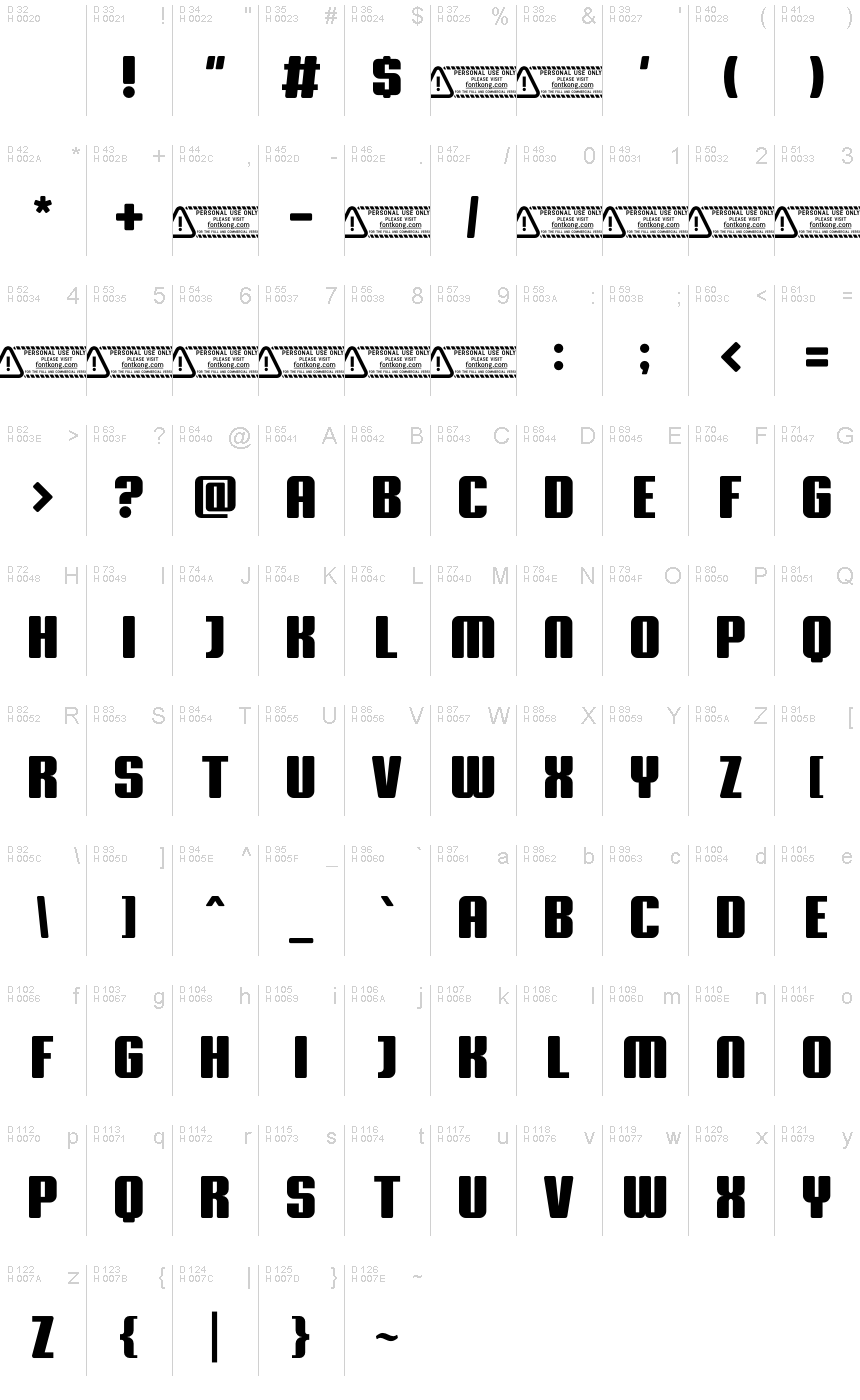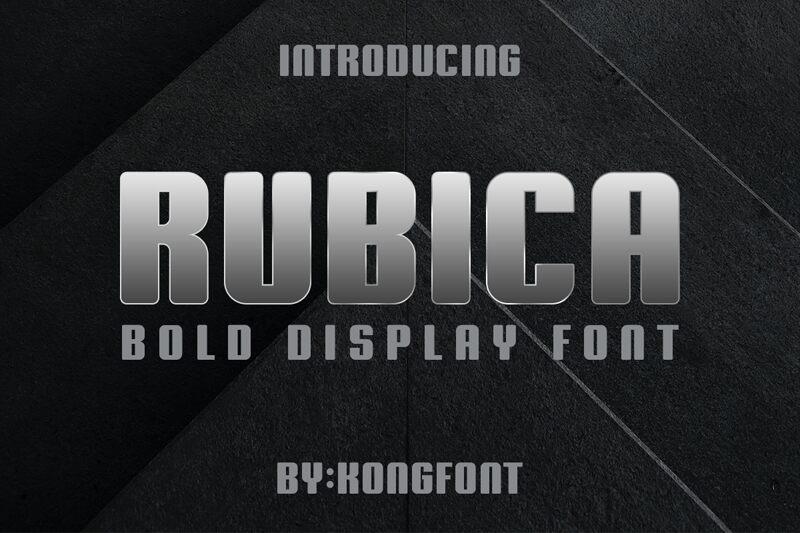
The bold weight and condensed form create a strong, modern typeface in Rubica font designed by Kong Font. It is a combination that gives the impression of strength and modernity; hence it can be used for impact designs. Rubica’s uniqueness is visible through its clean lines which sets it apart from other fonts.